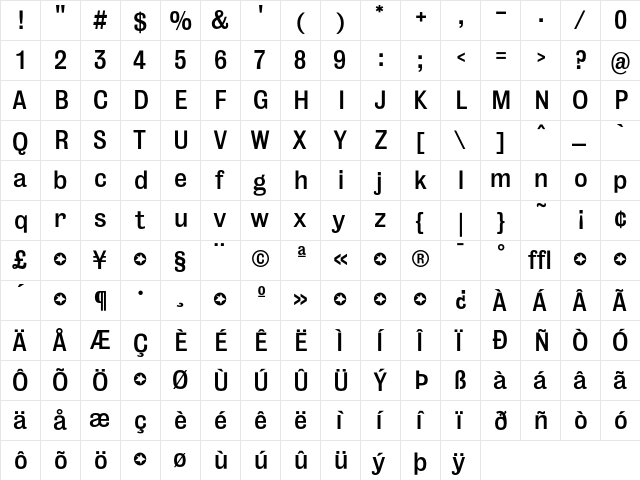
BureauGrotesque-FiveThree Regular
Design Context for BureauGrotesque-FiveThree Typeface
BureauGrotesque-FiveThree is a composed and adaptable typeface that performs quietly and consistently across a wide range of design contexts.
Pro Tip: Pair BureauGrotesque-FiveThree with a font of contrasting weight or personality to build a more expressive typographic hierarchy.